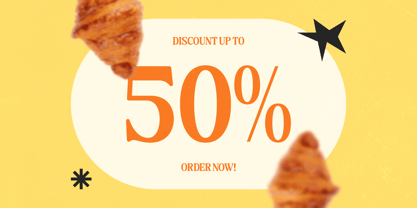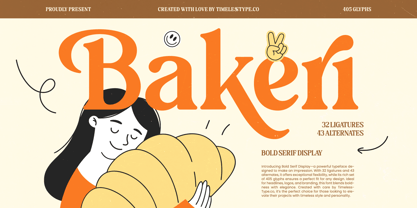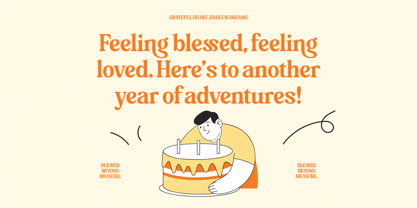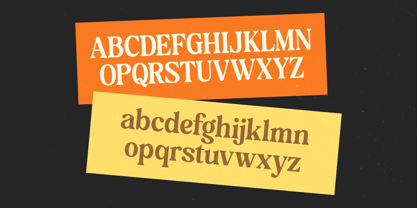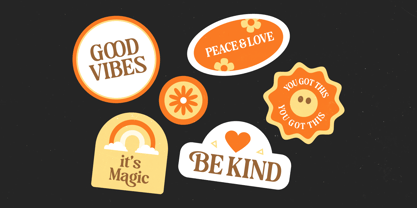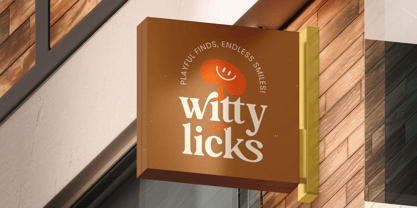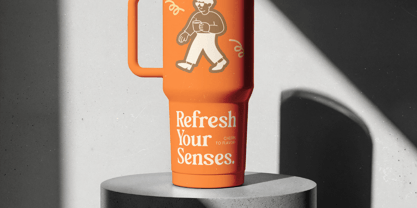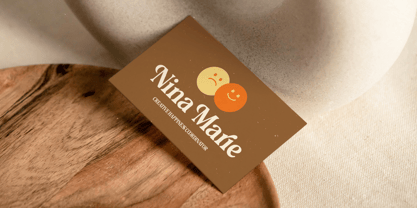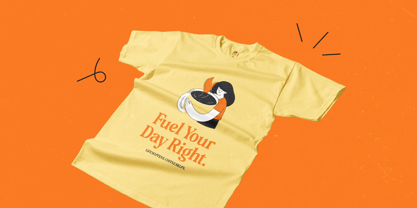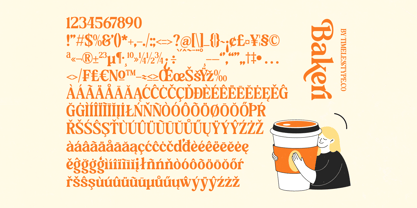
Bakeri
La familia tipográfica Bakeri fue diseñada por Heru Utama Putra y publicada por Timelesstype Studio. Bakeri contiene 2 estilos y opciones de paquete familiar. Más información sobre esta familia
Bakeri - Bold Serif Display , Bakeri is a bold serif display font designed with rounded proportions, soft curves, and playful weight that create a warm, friendly, and confident personality. The letterforms balance classic serif structure with a cheerful modern twist, making the typeface feel approachable yet strong. With 32 ligatures, 43 alternates, and over 405 glyphs, Baken offers flexibility for expressive typography while maintaining visual consistency. This font is ideal for branding, logos, headlines, posters, packaging, editorial layouts, children-friendly designs, food and bakery branding, social media graphics, and lifestyle projects that need bold character with a joyful tone. Designed for both print and digital use, Baken works best as a display font that delivers personality, charm, and timeless appeal.